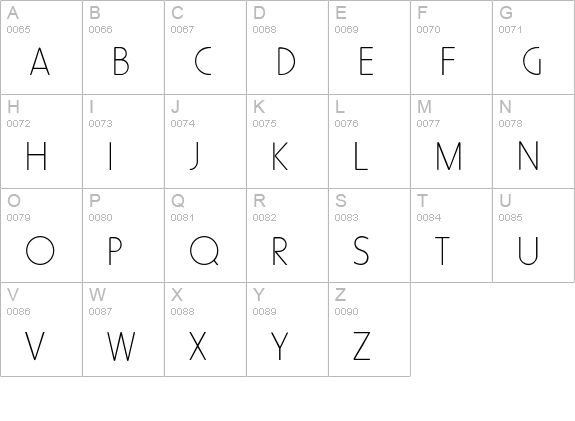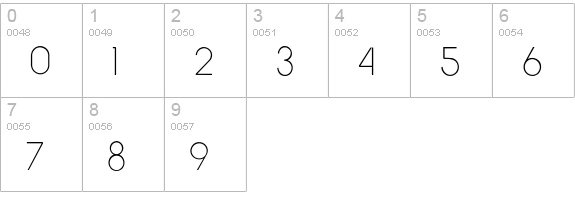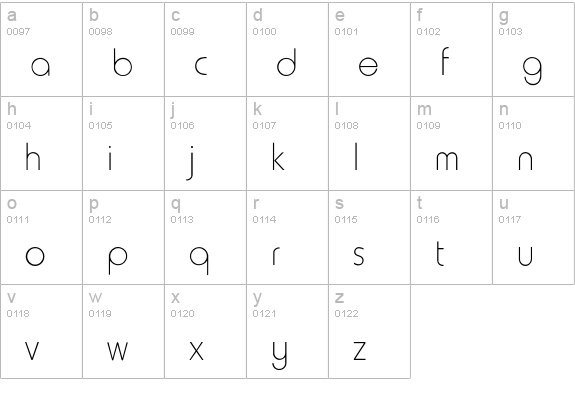
HammerThin Font Details
Introducing HammerThin, a sleek and modern font that exudes elegance and sophistication. With its slender and refined letterforms, HammerThin adds a touch of grace to any design project. Whether you're creating a logo, crafting a headline, or designing a beautiful invitation, this font will effortlessly elevate your work to new levels of professionalism. HammerThin is the perfect choice for those seeking a font that is both contemporary and timeless. Its clean lines and delicate curves create a harmonious balance, making it versatile for a wide range of applications. From fashion magazines to luxury brand identities, HammerThin effortlessly adapts to any creative vision. But what truly sets HammerThin apart is its accessibility. We believe that great design should be available to everyone, which is why HammerThin is offered completely free of charge. Yes, you read that right - this stunning font can be downloaded at absolutely no cost! Head over to FontsMarket.com to grab your copy and start incorporating HammerThin into your designs today. Download HammerThin now and experience the power of elegant typography at your fingertips. Let your creativity soar as you explore the endless possibilities this font offers. Don't miss out on this incredible opportunity to enhance your designs with a font that combines sophistication, versatility, and accessibility. Get HammerThin today and redefine the way you communicate visually.